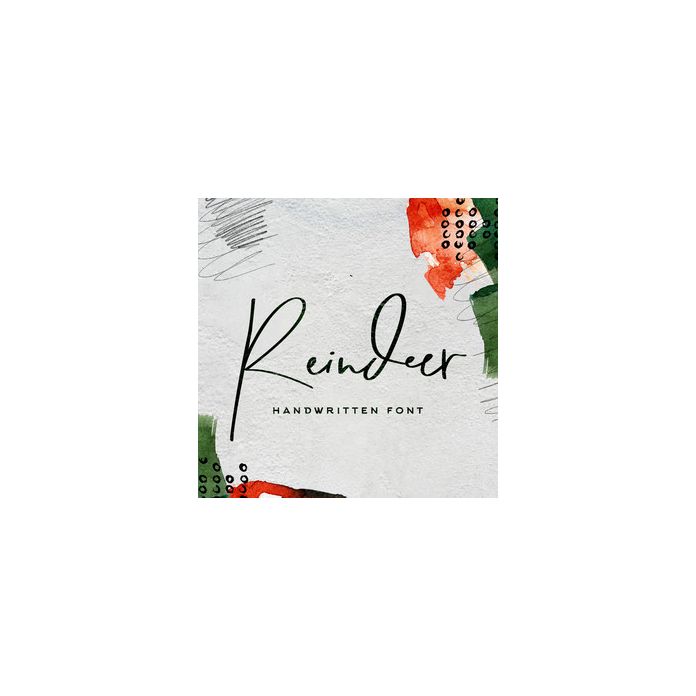
Reindeer is the perfect festive script to give your holiday designs that stunning hand drawn aesthetic. Pair it with sans or serifs and make the Holidays bright!